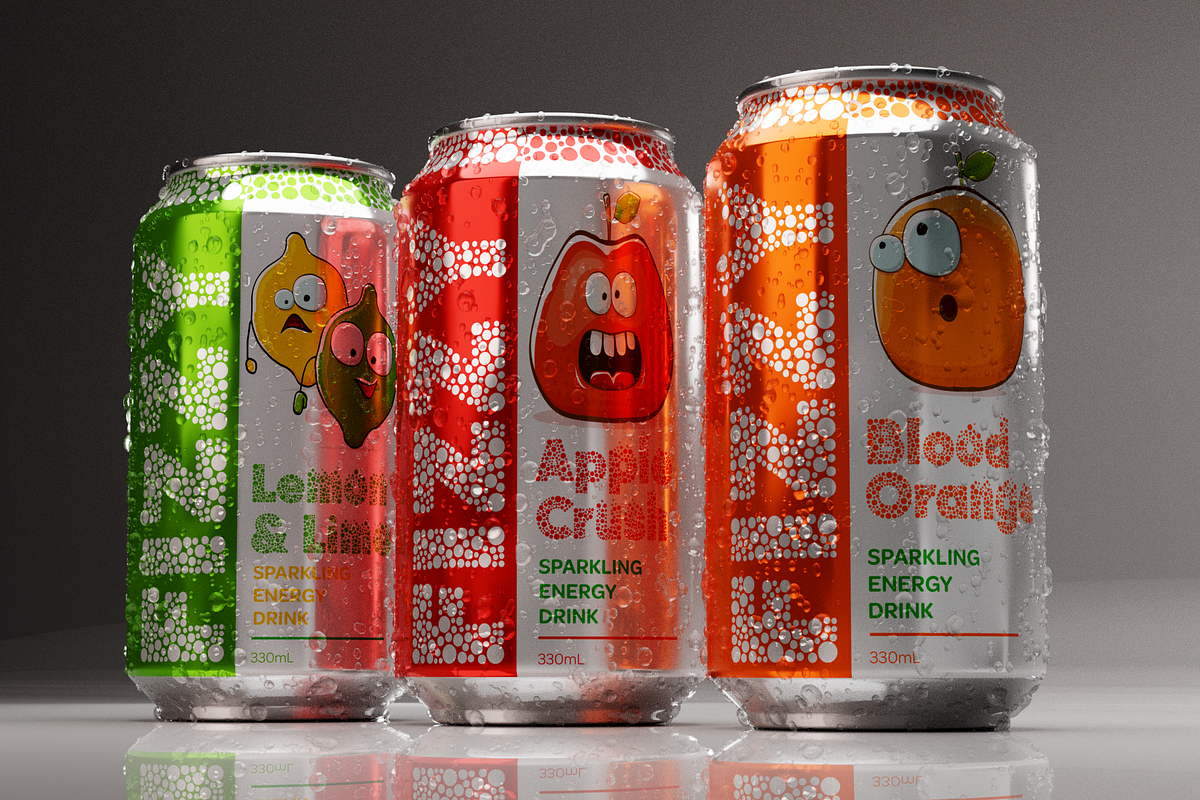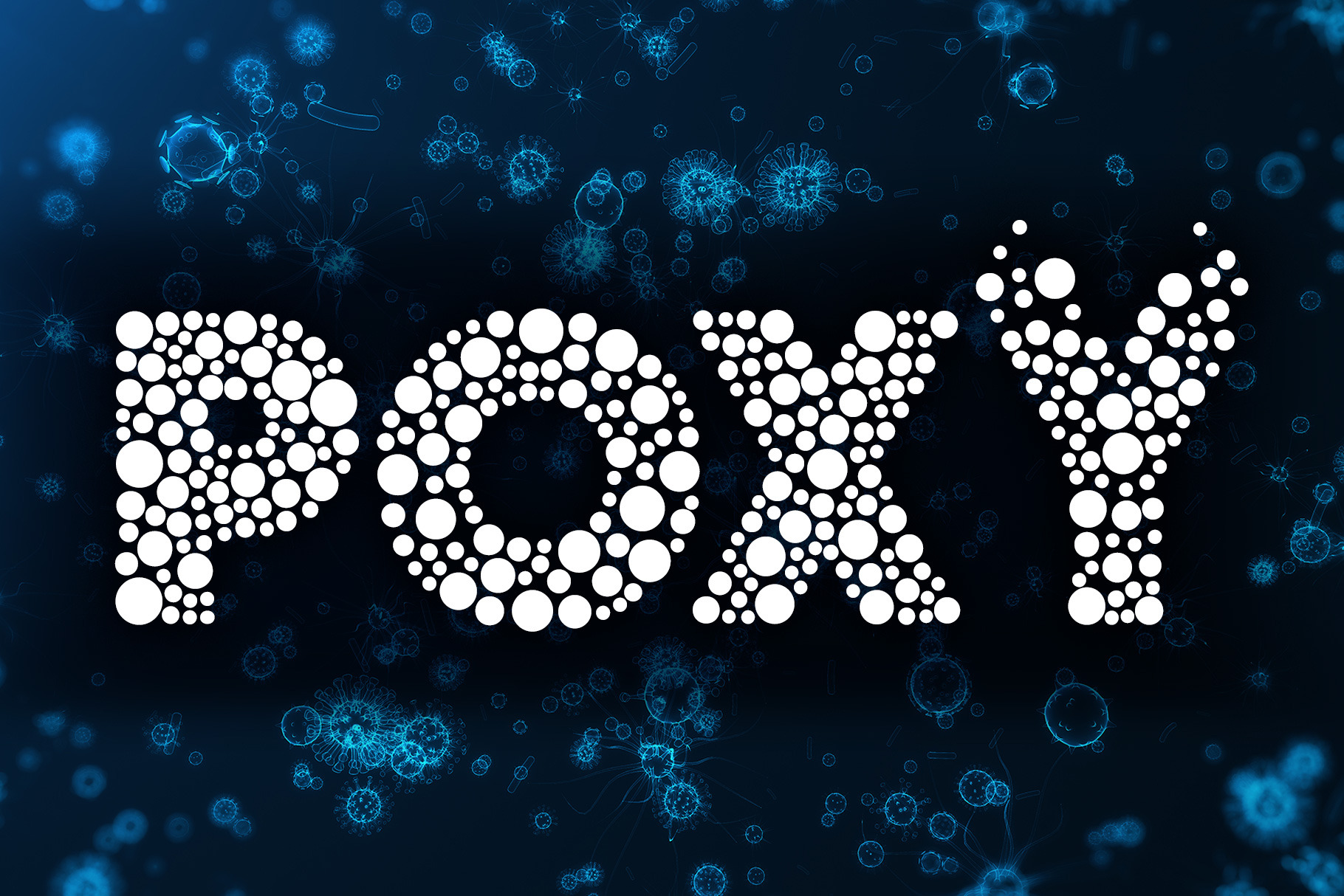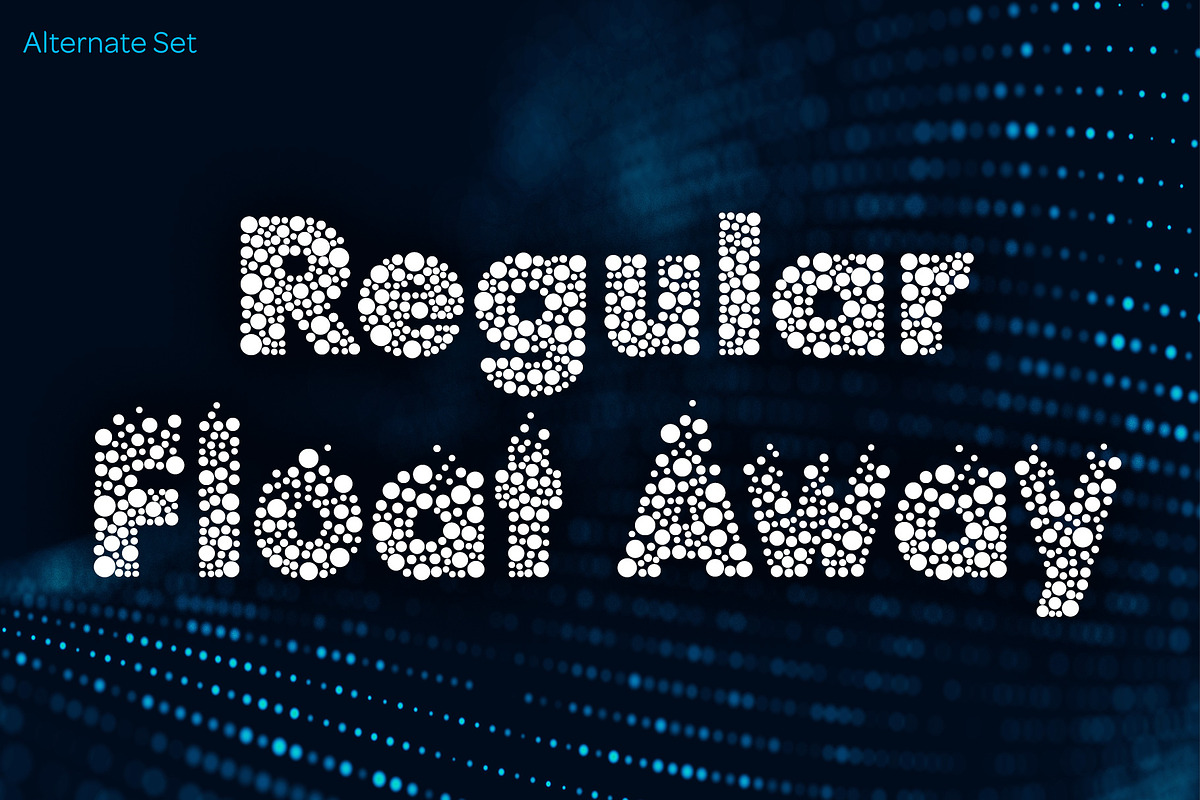
Poxy font
Poxy is a black weight display font built with circular particles, including an Alternate Stylistic Set that offers the option to make letters, numbers and symbols float away at the the top of each glyph.